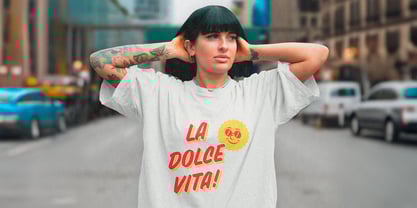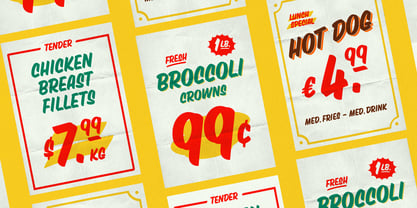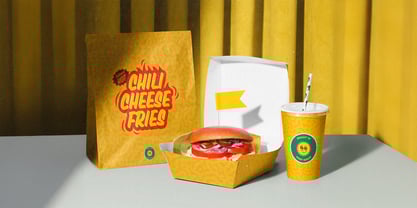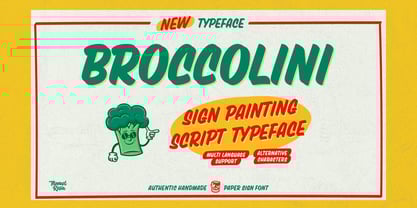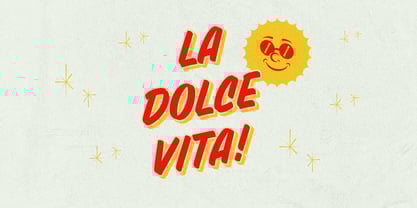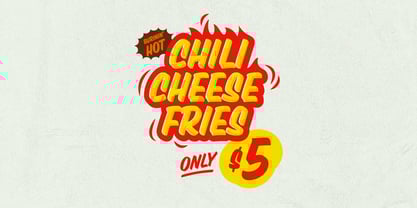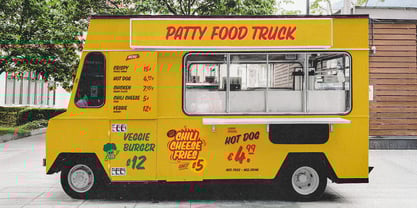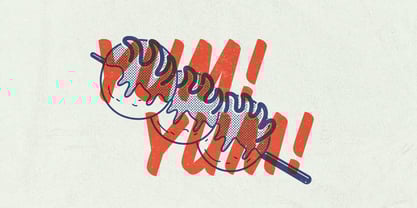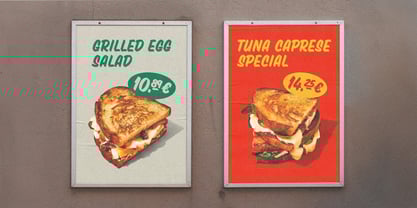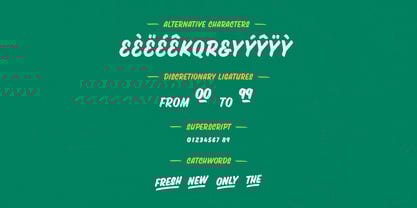
Broccolini
by Manuel Rosin
The Broccolini Font Family was designed by Manuel Rosin and published by Manuel Rosin. Broccolini contains 1 styles. More about this family
Broccolini is a typeface based on sign painting strokes with rounded corners and a handmade flavour. Letterforms are inspired by Casual sign painting style which was used on shops and markets signs. Its bold strokes make it a perfect choice for advertising, packaging and logotypes with style!
Broccolini supports multi-languages (mostly Western Europe), it has some alternative characters, a huge amount of discretionary ligatures and some catchwords to spice up your graphics!